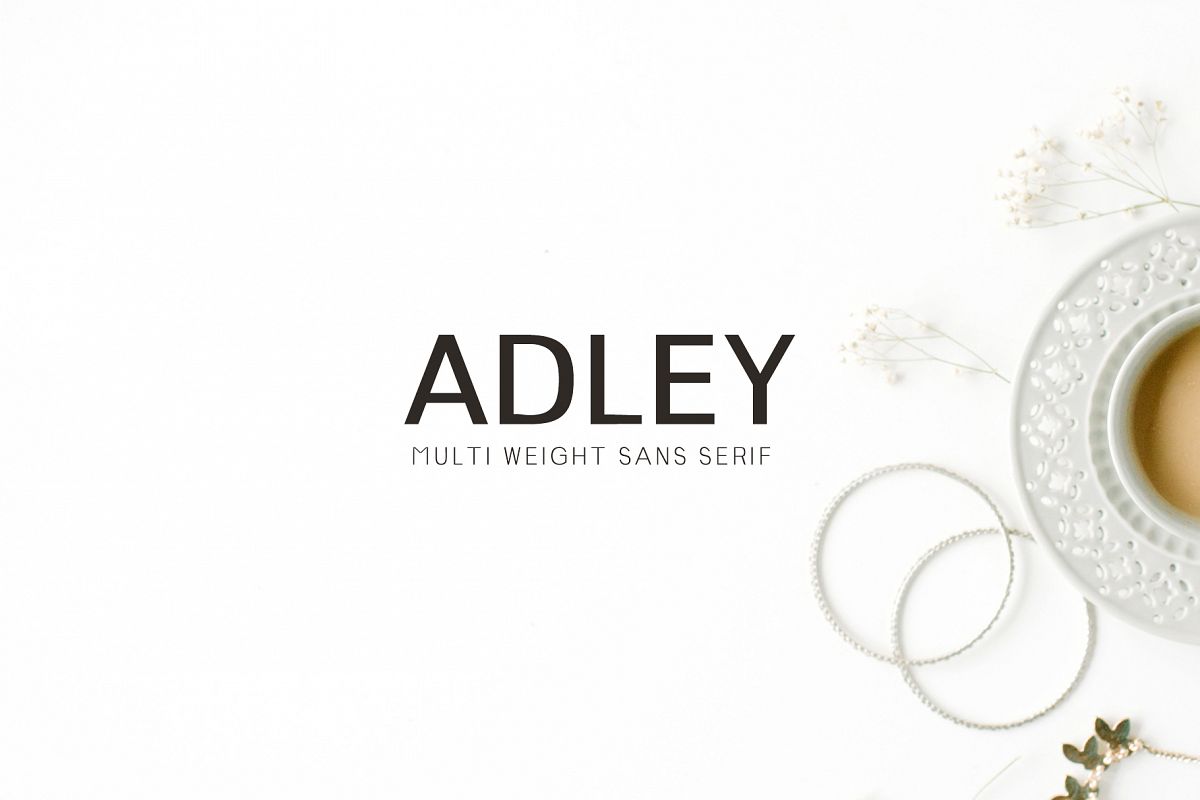
Adley Sans Serif 3 Font Family Pack
Adley Sans Serif font is a set of 3 weights font family. It is good for making creative templates and stationary. Adon suits best for modern / clean designs, logos, headlines, banners and templates etc.It looks gorgeous in all caps with a wide-set spacing if you want to try a classy look, or beautiful on its own in capital and lowercase letters for something completely timeless.Included Features:
• Regular, Light, and Black Weights
• Extras: Uppercase Multilingual Letters, Lowercase Multilingual Letters, Numbers & Punctuation + Alternatives.